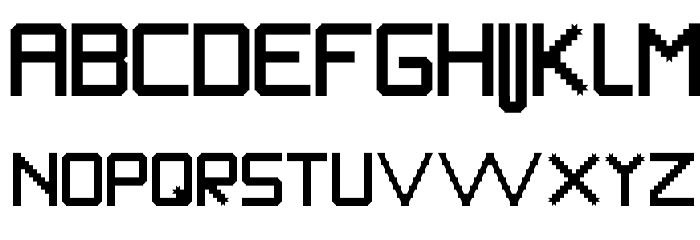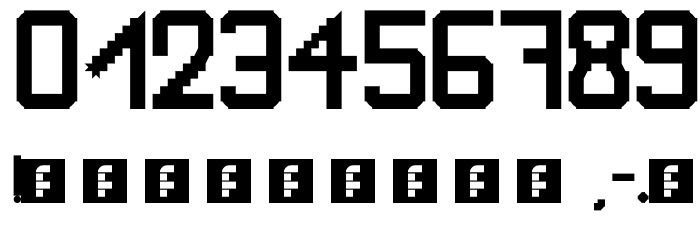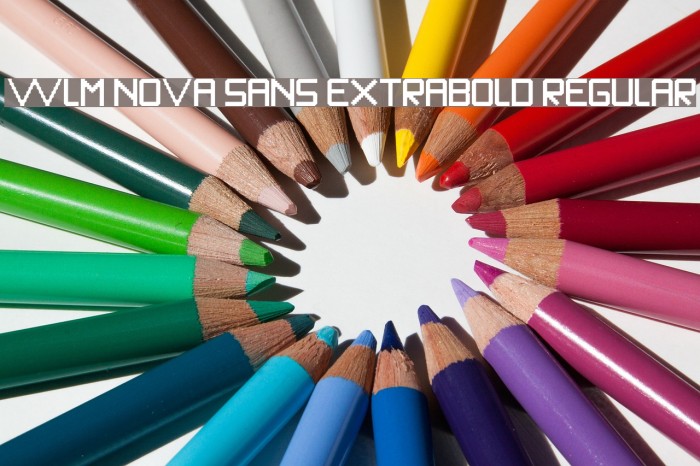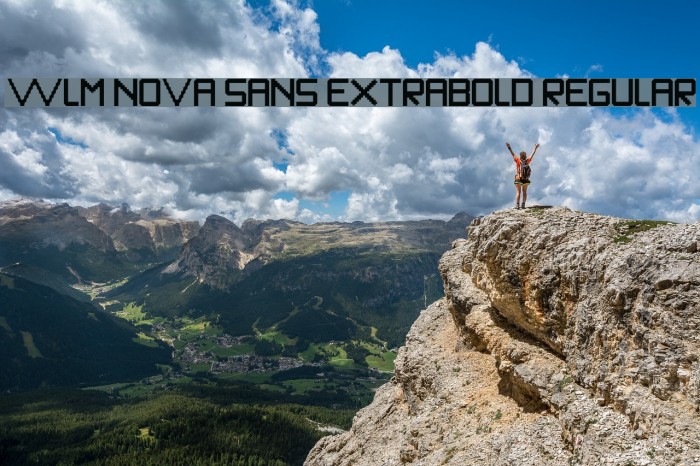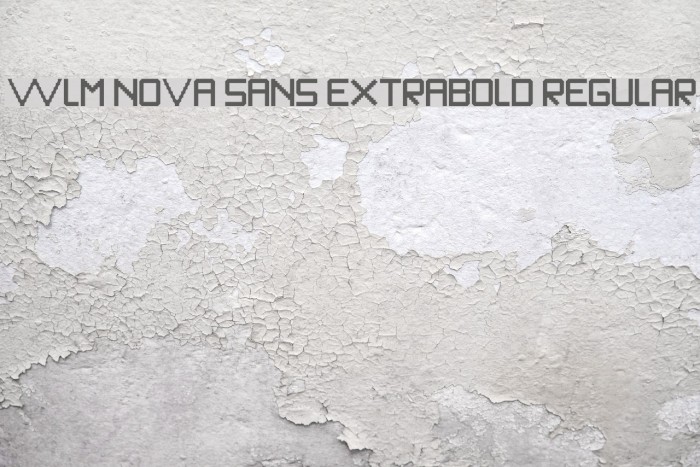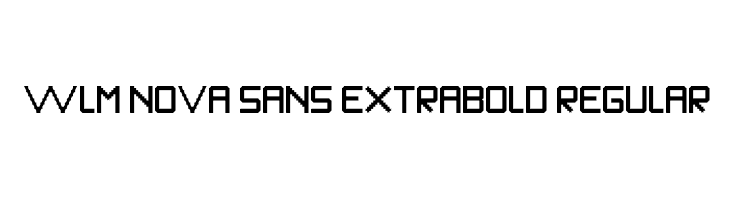
WLM Nova Sans ExtraBold Regular Font
This font features a bold and geometric design with a futuristic aesthetic. The characters are constructed with straight lines and sharp angles, giving it a digital and modern feel. The uppercase and lowercase letters maintain a consistent height, contributing to a uniform appearance. The numerals and special characters follow the same design principles, ensuring cohesion across all glyphs. The font's unique style is characterized by its blocky and pixelated look, reminiscent of early digital displays or retro video games. This makes it particularly suitable for projects that aim to evoke a sense of nostalgia or a tech-oriented theme.
A bold, geometric font with a futuristic and digital aesthetic.
- Proposed Projects: Ideal for tech-themed designs, retro video game graphics, digital displays, and branding that requires a modern and edgy look.
- Use Case: Logos, Headlines, Digital Displays